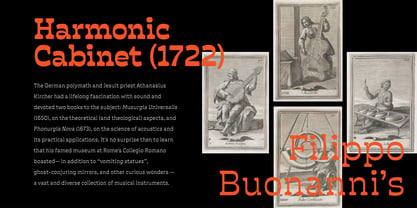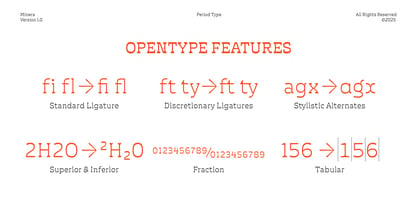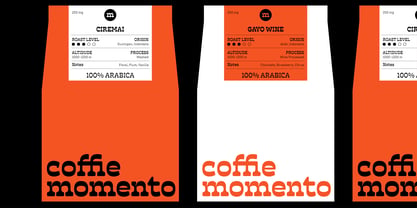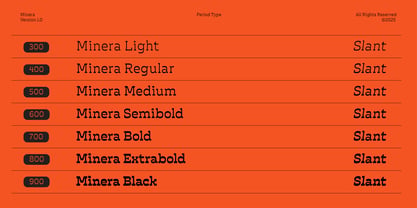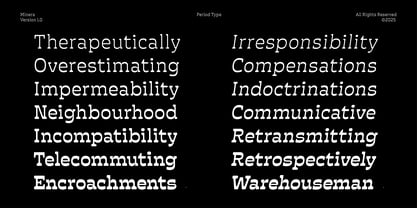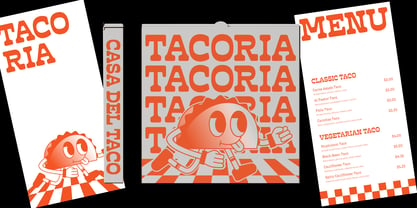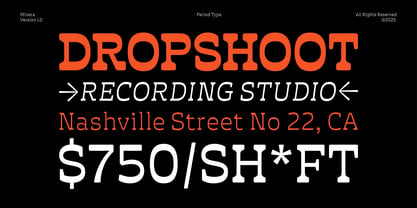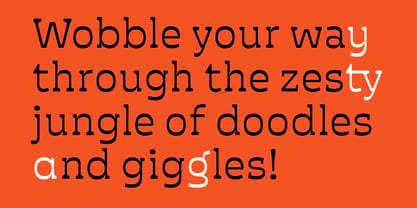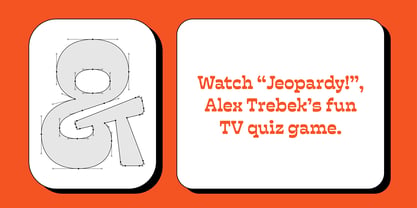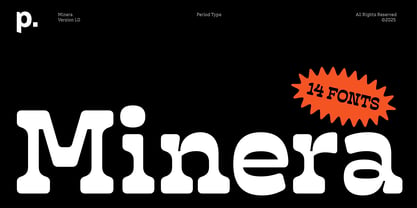
Minera
Die Schriftfamilie Minera wurde von Nugi Maulana Nurzahid entworfen und von Period Type veröffentlicht. Minera enthält 15 Stile und Familienpaketoptionen. Mehr über diese Familie
Minera is a reverse-contrast slab serif designed to bring a fresh and dynamic touch to any project. Originally crafted as a display typeface, it carries a fun, friendly, and casual vibe, making it ideal for branding, packaging, editorial design, and restaurant menus. With its distinctive look, Minera ensures that your message stands out in a crowd.
Featuring 491 glyphs, Minera is equipped with a variety of OpenType features to enhance creativity and functionality:
• Standard Ligatures
• Discretionary Ligatures
• Stylistic Alternates
• Superior & Inferior Characters
• Fractions
• Tabular Figures
Designed for a global audience, Minera supports 278 languages, making it a versatile choice for multilingual typography.
Whether you're crafting a bold brand identity or an eye-catching headline, Minera delivers both impact and charm. Elevate your designs with its playful yet confident style!